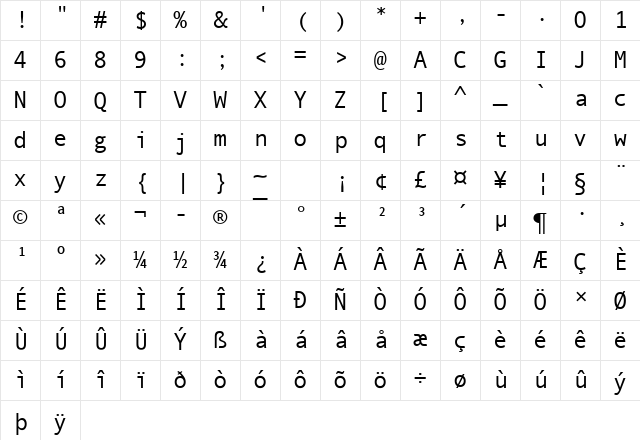
Monotype.com Regular Free Font
Monotype.com Regular
Foundry: Monotype Typography, Inc.
Designer: Steven R. Matteson
Design Context for Monotype.com
Monotype.com uses fixed-width spacing throughout, giving it the structured, systematic character associated with coding environments and technical documentation.
Pro Tip: Use Monotype.com with slightly increased line-height for extended reading - fixed-width spacing can feel dense in longer passages without extra breathing room.